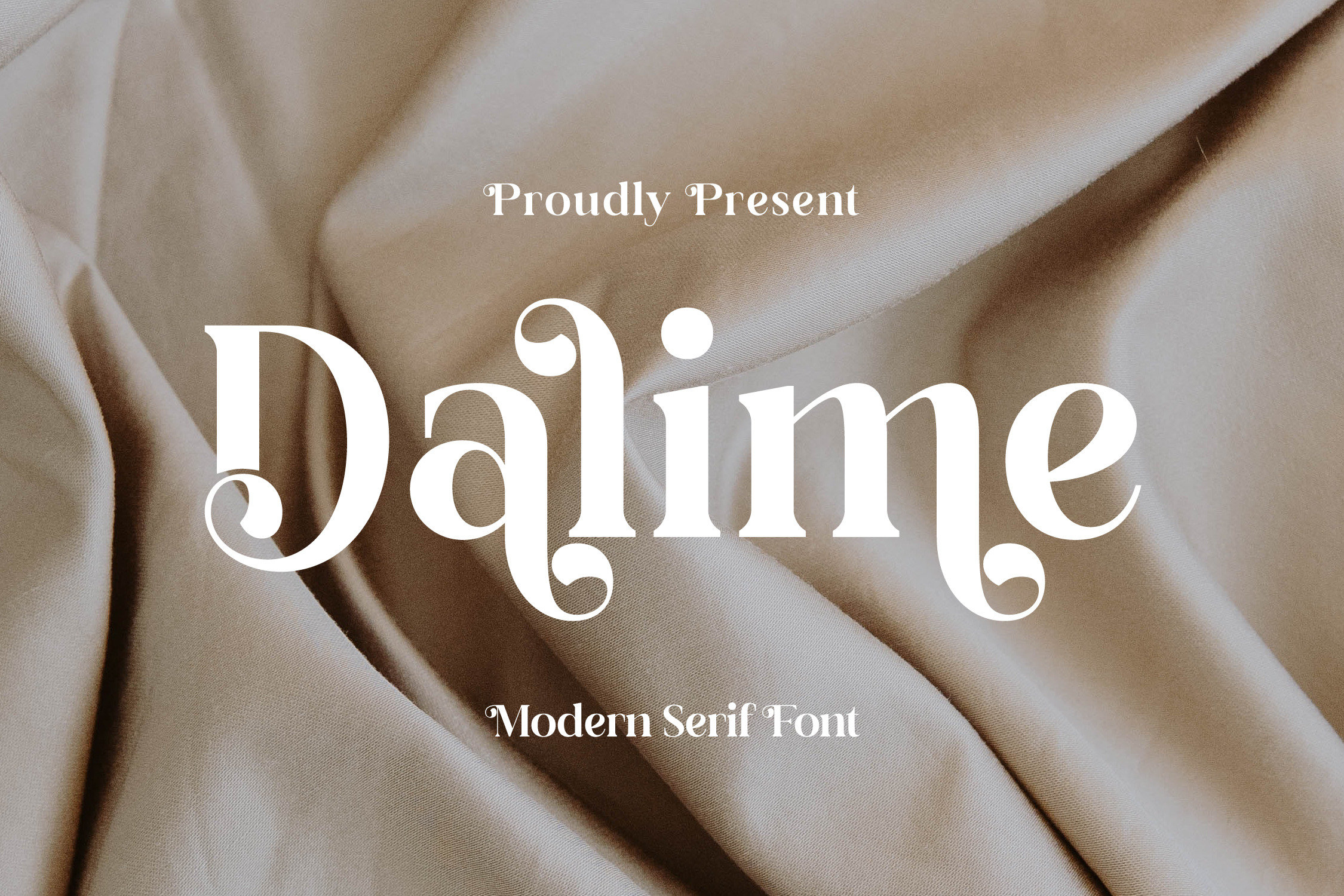
Dalime Stylish Modern Serif Font
Proudly present Dalime Typeface, created by Storytype, A serif modern and classic typeface that has own unique style & modern look. This typeface is perfect for an elegant & luxury logo, book or movie title design, fashion brand, magazine, clothes, lettering, quotes, and so much more.